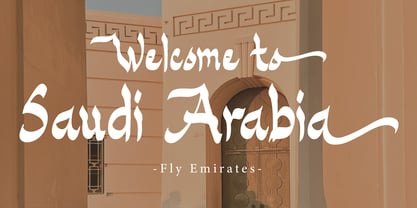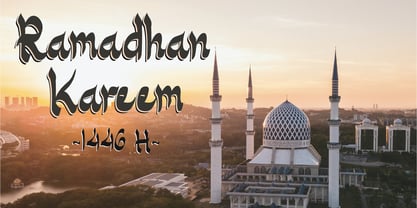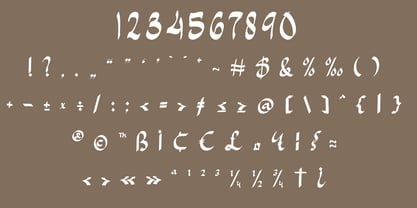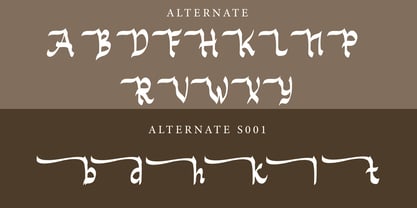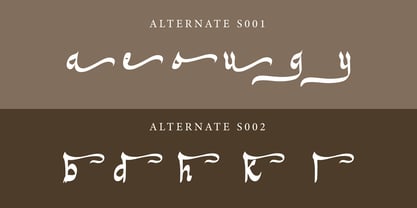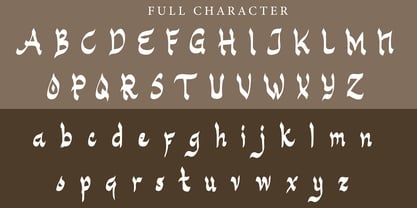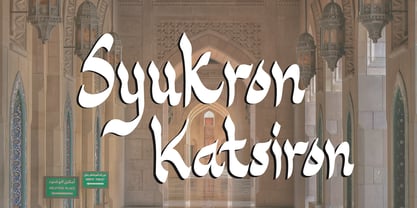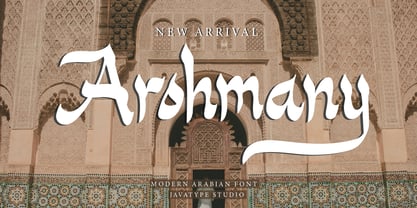
Arohmany
by Javatypestd
The Arohmany Font Family was designed by Tio Yulianto and published by Javatypestd. Arohmany contains 1 styles. More about this family
Presenting Arohmany, an exquisite Arabic font meticulously crafted with a calligraphy pen. This unique typeface interweaves classic Arabic characters with contemporary stylistic elements, rendering an elegant fusion of past and present. Ideal for a range of creative ventures, Arohmany is a perfect fit for your unique designs - from eye-catching banners and trendy t-shirts to compelling photographic captions, engaging YouTube channels, and impactful advertisements. Immerse in the artistic charm of Arohmany, and let your design speak volumes.
Designers: Tio Yulianto
Foundry: Javatypestd